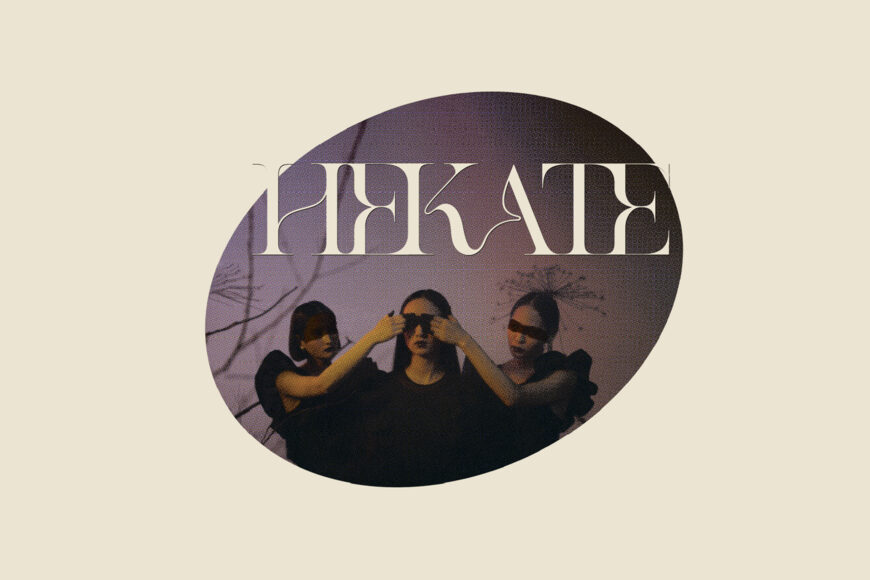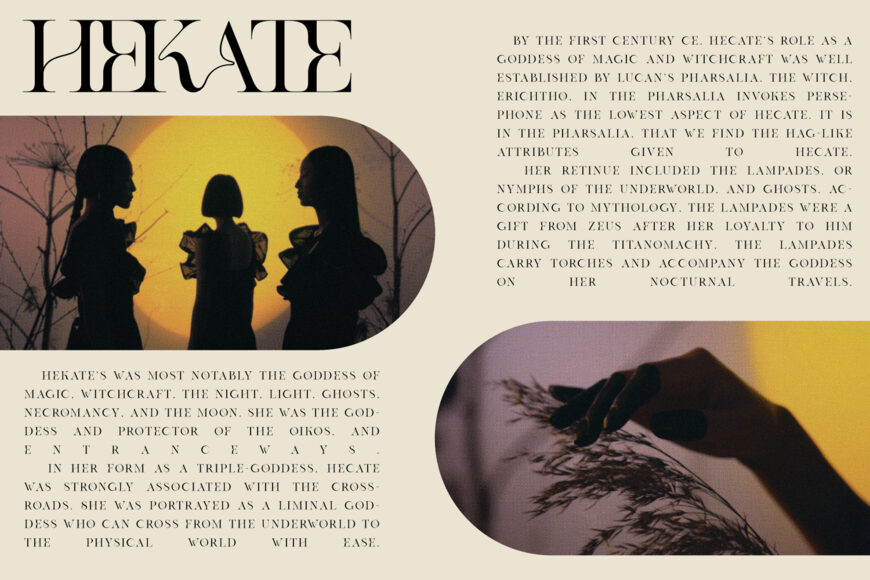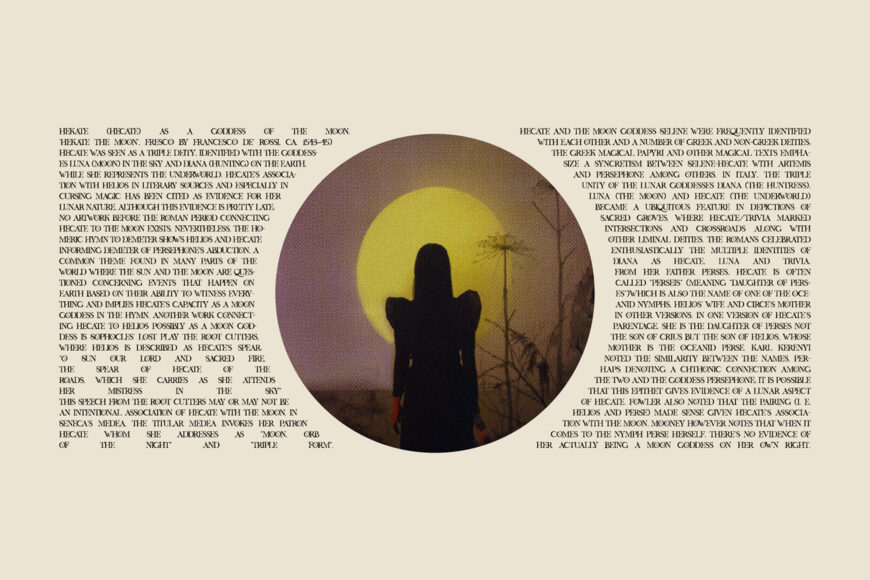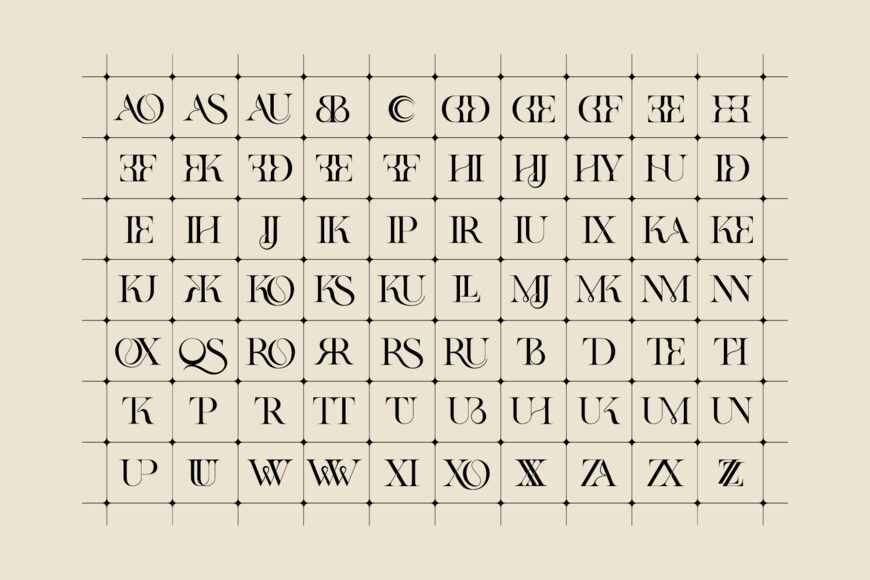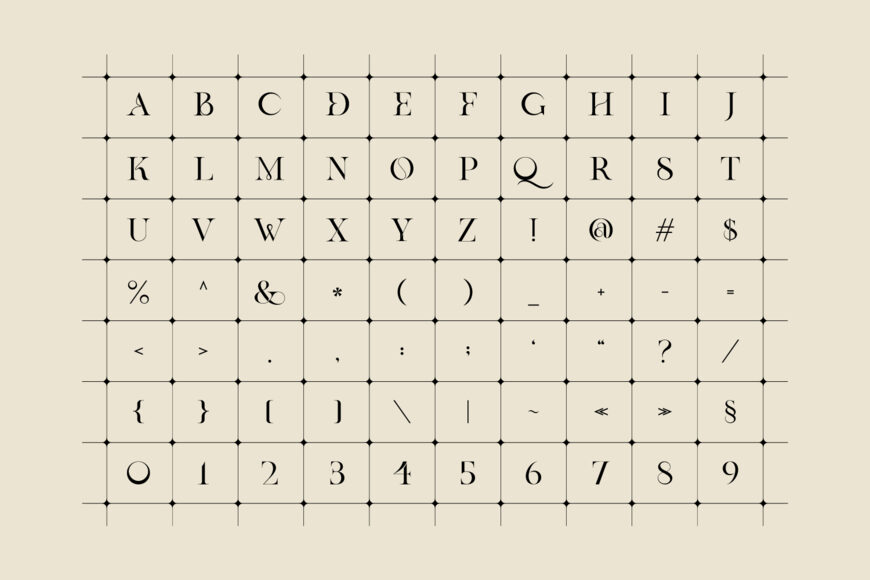
Hekate Font
Hekate is a high-contrast serif font that blends classical elegance with a mystifying, editorial edge. Named after the Greek goddess of magic and the night, its design features sharp serifs, delicate hairlines, and flowing, liquid-like ligatures.
Rich with intricate character sets and decorative glyphs, Hekate is crafted for editorial layouts, branding, album art, and high-fashion graphics seeking a dark, ethereal aesthetic.